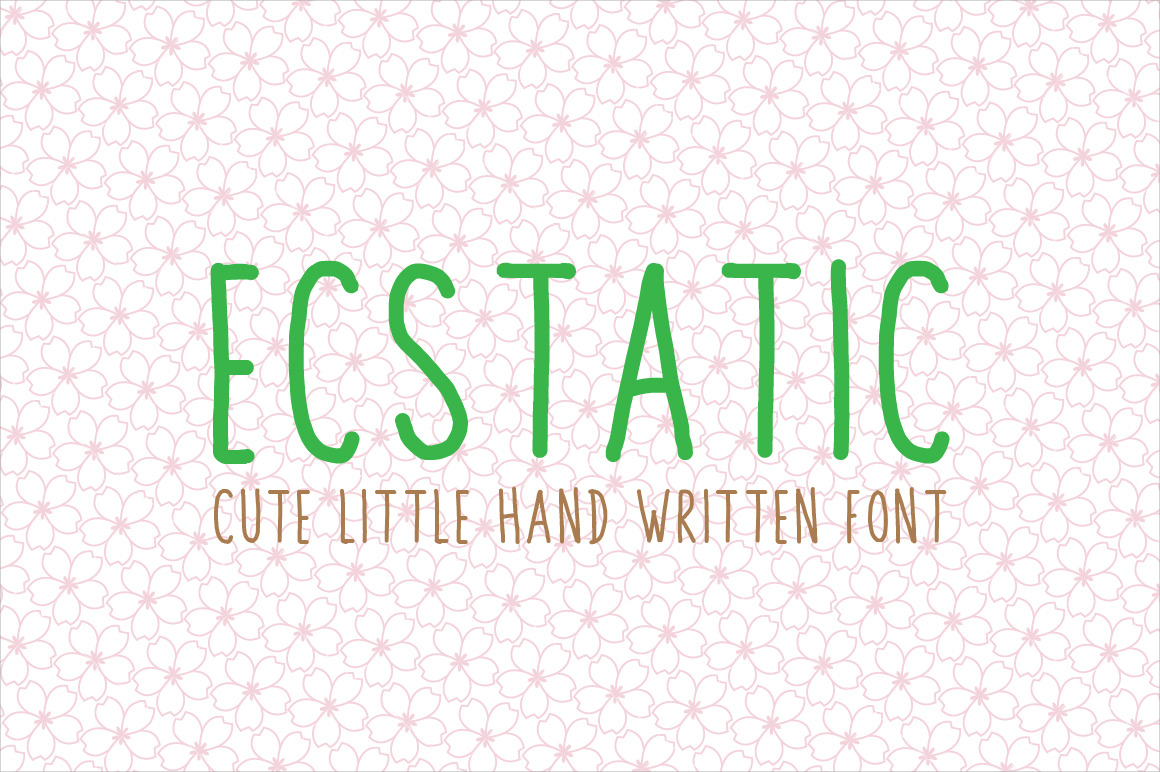
Ecstatic Typeface
Ecstatic is cute little hand written font that can add awesomeness to your design.
Uppercase, lowercase and numerals are available in this typeface. And most importantly this awesomeness comes with an attractive price. Only $6.